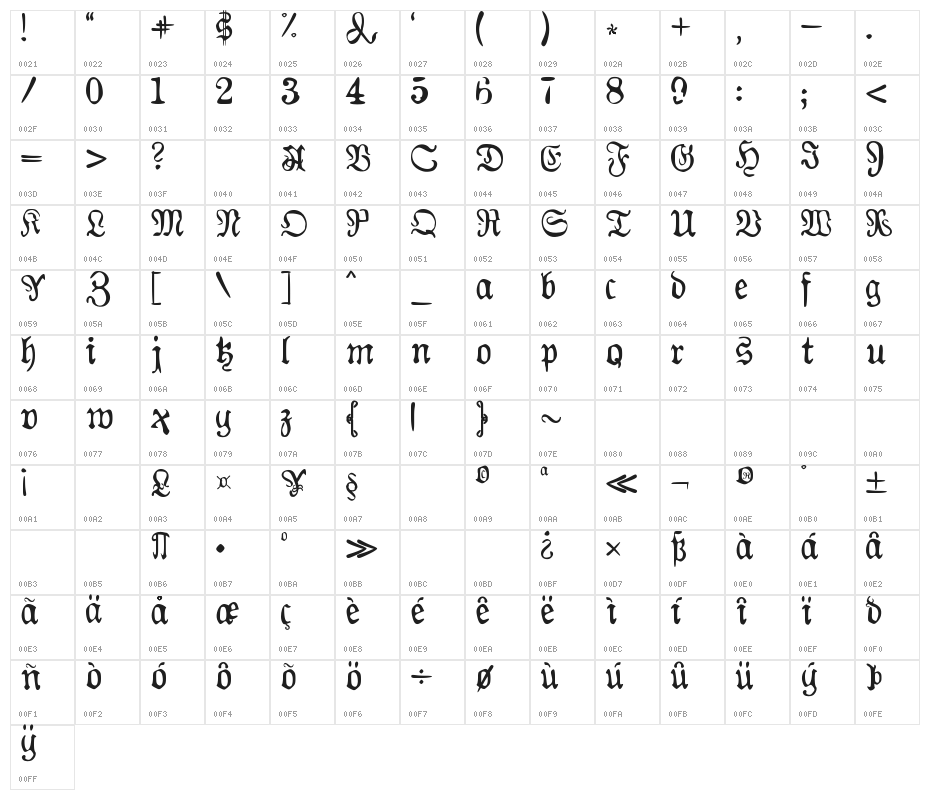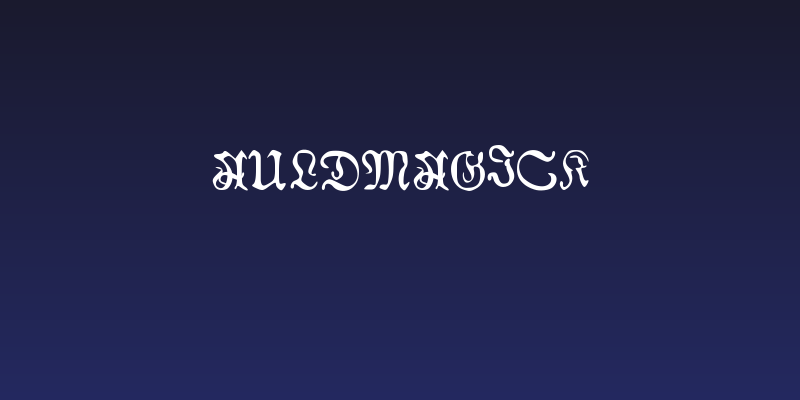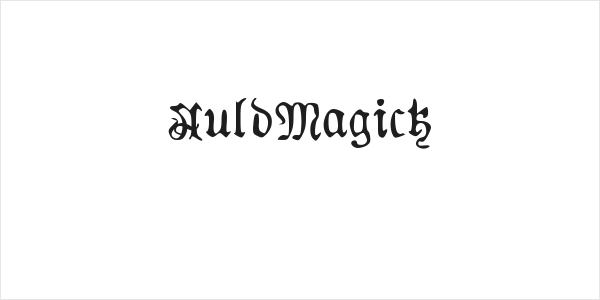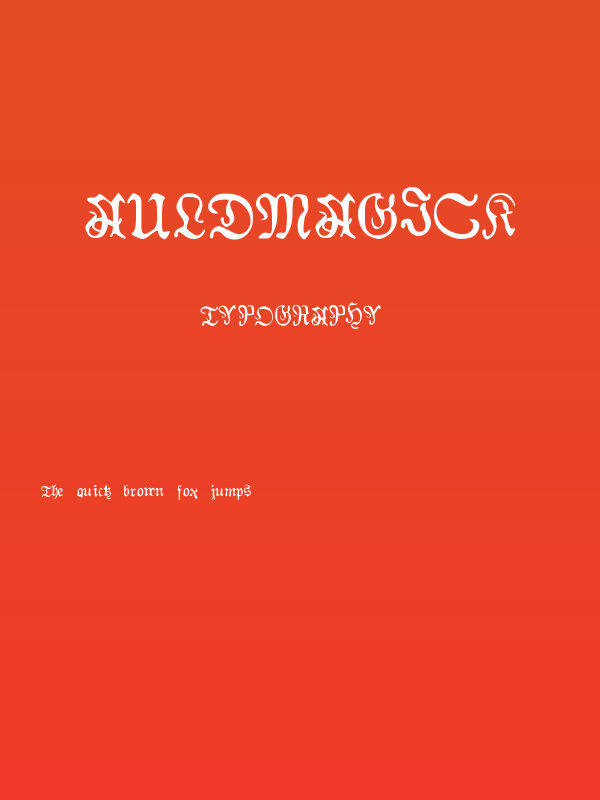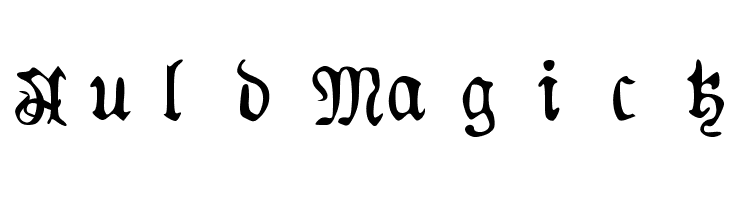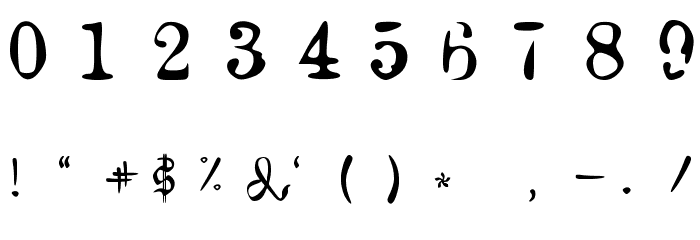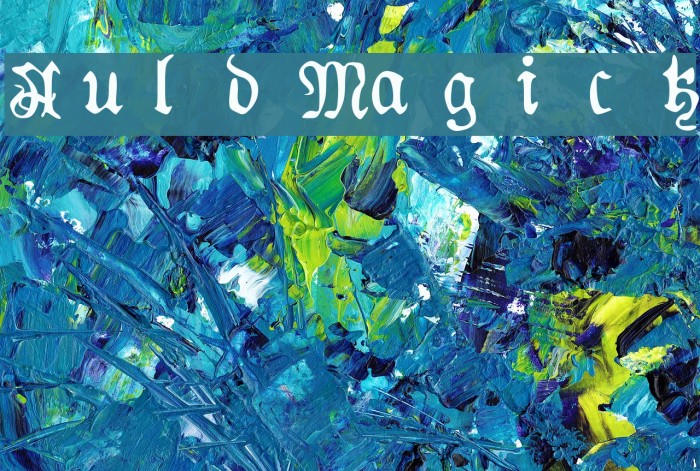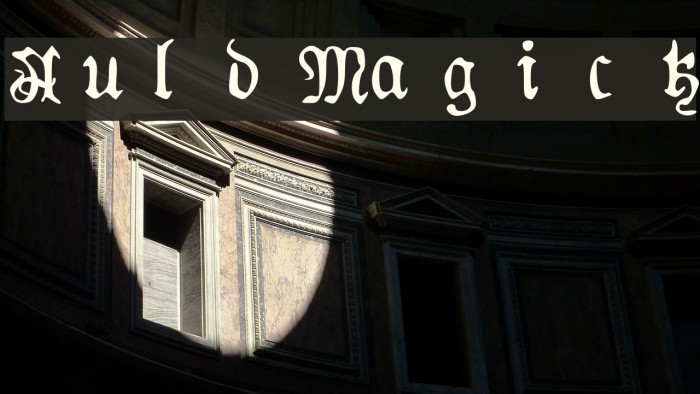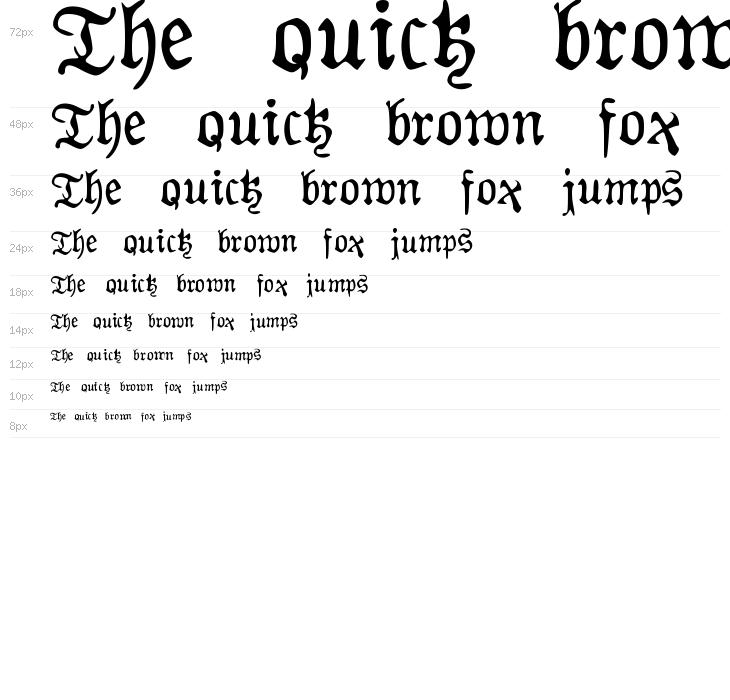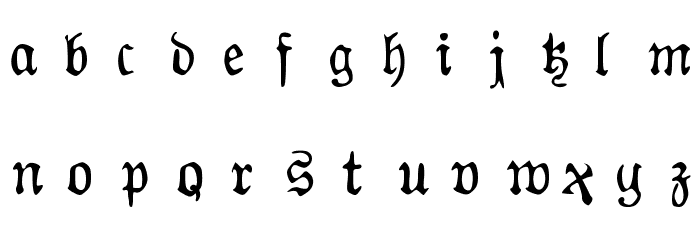
AuldMagick Font
AuldMagick Description
This font features a classic blackletter style with intricate and ornate details. The characters are bold and have a strong presence, reminiscent of medieval script. The uppercase letters are particularly elaborate, with flourishes and sharp angles that give them a dramatic appearance. The lowercase letters maintain the same decorative style but are slightly more subdued, allowing for readability. Numbers and special characters follow the same aesthetic, ensuring consistency across all glyphs. This font evokes a sense of history and tradition, making it ideal for projects that require a touch of elegance and antiquity.